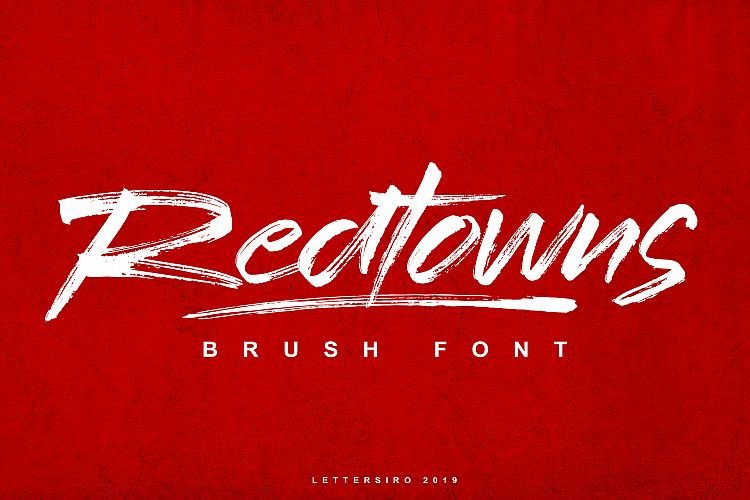
Redtowns Brush Font
Hi Guys! I am happy to present you a modern brush font, it’s easy to use for different project type and style. The clean is elegant and the rough is awesome, better paired with ligatures and also swashes. Introducing Redtowns Font. Redtowns Brush Font is font that made manually using brush pen and paper. This font is great for nowdays project like clothing, signature, watermark, photograpy, poster, branding. Redtowns also come with underline swashes than perfectly can be paired. Just do with your own creativity, this is easy use font, will make your project easier.